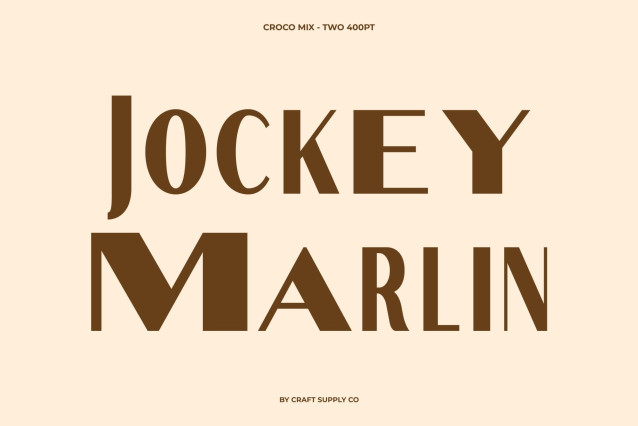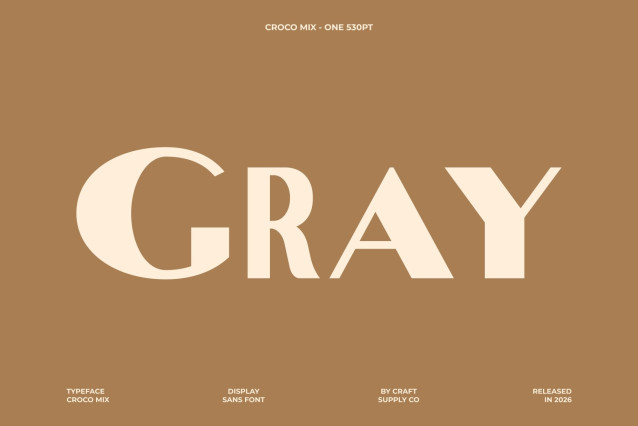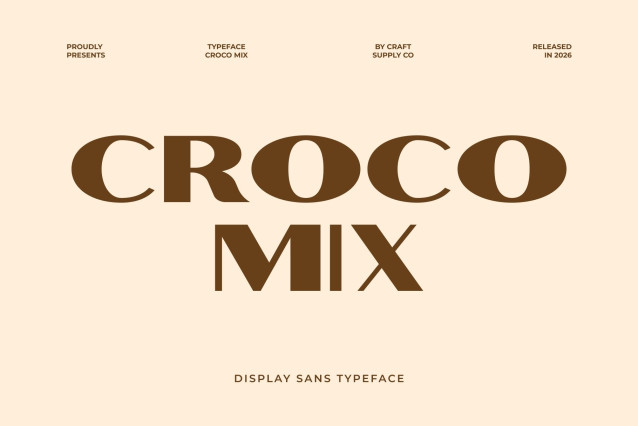
Croco Mix – Modern Sans Serif Font: Contemporary Style with Clean Creative Precision
Modern Sans Serif with Mixed Style Character
This is a modern sans serif font designed to deliver clean aesthetics, contemporary elegance, and stylish visual impact. Built with balanced proportions and refined geometry, this typeface introduces a distinctive mixed-style concept that adds subtle contrast and personality to every composition. It transforms simple typography into a sophisticated design element that feels modern, fresh, and expressive.
A Dynamic Blend of Bold and Regular Letterforms
The unique appeal of this font comes from its creative fusion of bold and regular characters. This mixed-weight approach creates a smooth typographic rhythm that enhances readability while adding visual depth and movement. The contrast between strong and balanced strokes gives the font a stylish and artistic character without compromising clarity or professionalism.